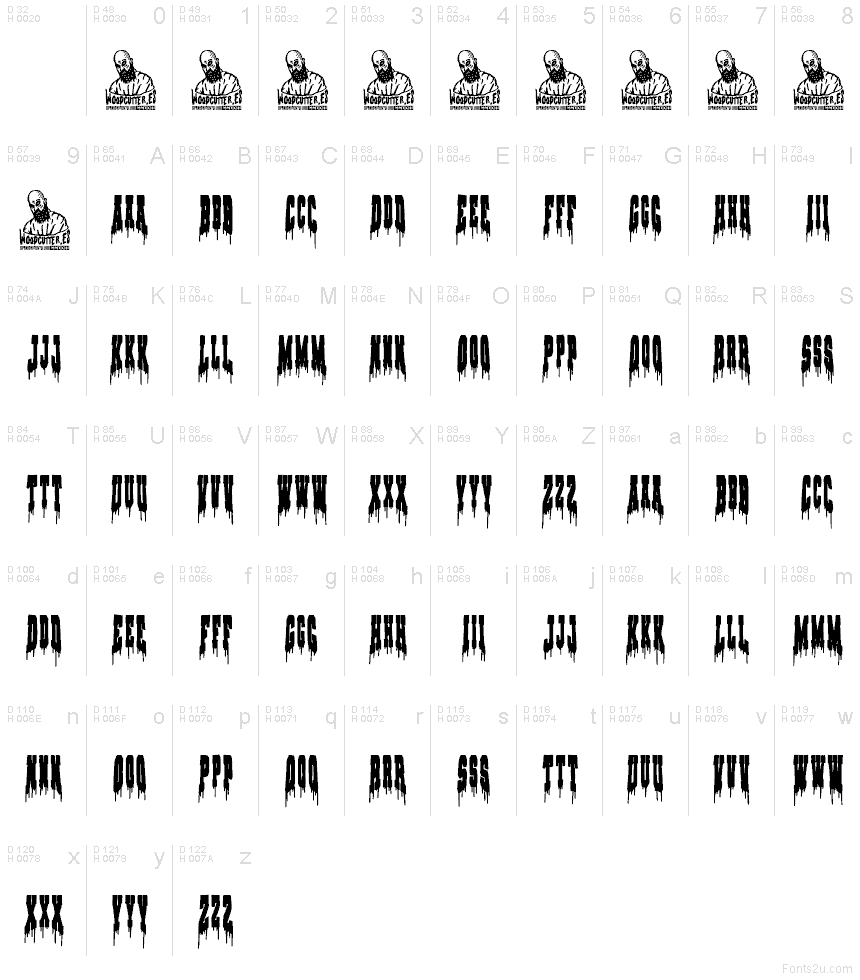
Street Monogram
Street Monogram font designed by Woodcutter is a condensed, scary display font with decorative letter styles. It body comprises all uppercase typeface, however, with stylish designs for each individual character that are made even clearer when used in combinations.
Popular use cases included creating monograms, logos, labeling, signage designs, headings and posters.
Four fonts for creating your monogram:
1. Street Monogram Complete
2. Street Monogram Center Letters
3. Street Monogram Left Letters
4. Street Monogram Right Letters